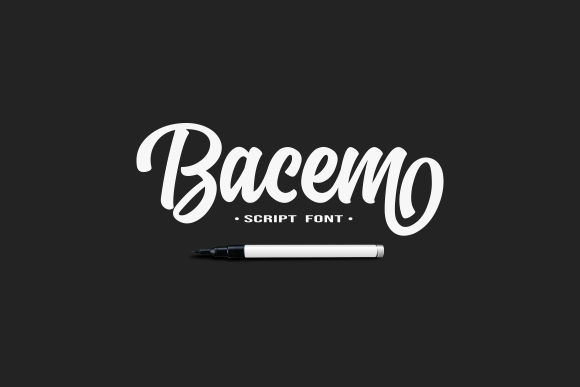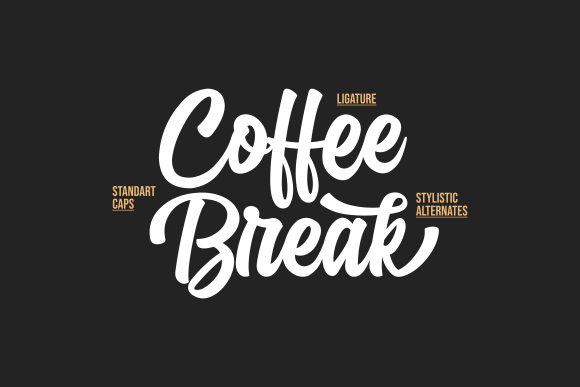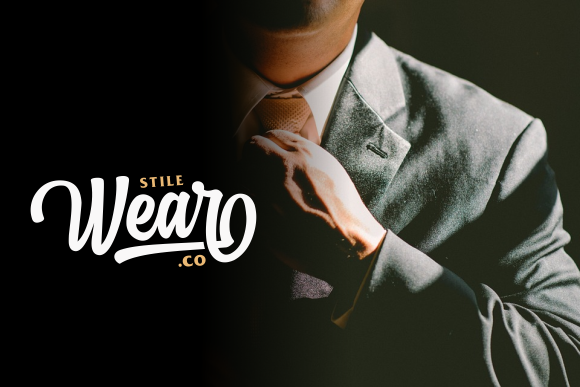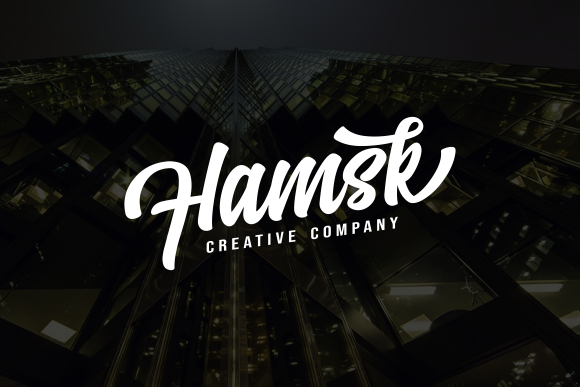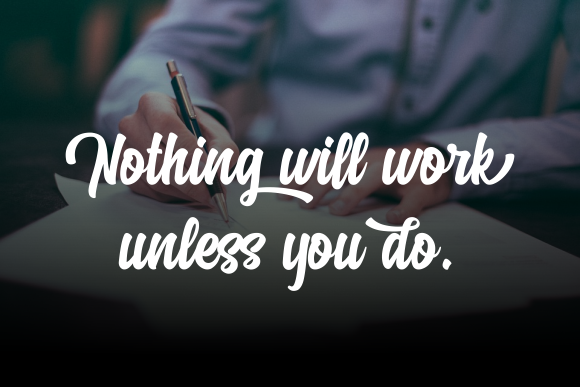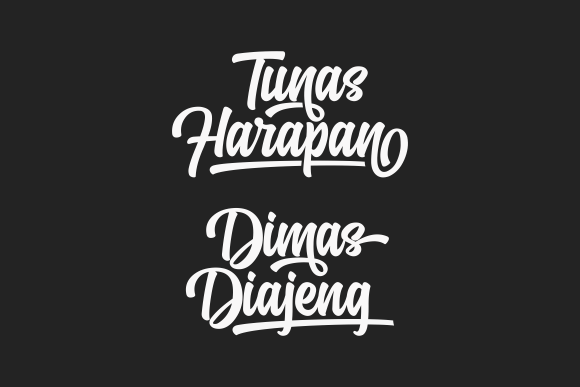
Bacem Font
About Bacem Font
The Bacem is a striking script font. It has bold letters with a great readability which makes it perfect for logotypes, quotes and headlines.